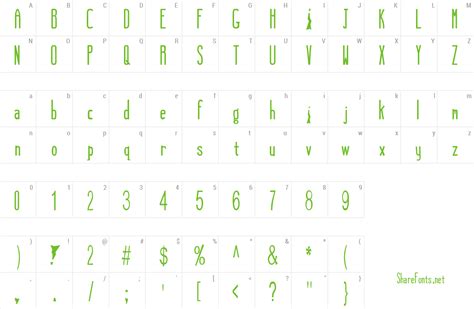
The Hustle Tall Narrow Font: Boost Your Designs
Hey guys! Ever stumbled upon a font that just screams personality and professionalism all at once? That’s exactly what the Hustle tall narrow font does, and trust me, it’s a game-changer for anyone looking to add some serious oomph to their visual projects. We’re talking about a font that’s not just about letters; it’s about making a statement. Whether you’re a graphic designer, a blogger, a marketer, or just someone who loves to make things look awesome, this font is your new best friend. Its unique tall and narrow characteristics give it an undeniable edge, allowing you to fit more text into smaller spaces without sacrificing readability or style. It’s perfect for grabbing attention, whether it’s on a banner, a social media graphic, a website header, or even a business card. The Hustle font is designed to be bold and impactful, ensuring your message cuts through the noise and sticks with your audience. Think about those moments when you need to convey urgency, excitement, or a sense of premium quality – this font nails it every single time. It’s versatile enough to be used in a variety of contexts, from edgy streetwear branding to sophisticated corporate presentations. The beauty of this font lies in its ability to be both commanding and elegant, a rare combination that makes it stand out in a crowded digital landscape. So, if you’re ready to elevate your design game and make your content more engaging and memorable, let’s dive deep into what makes the Hustle tall narrow font such a powerful tool in your creative arsenal.
Why the Hustle Tall Narrow Font is Your Go-To Choice
So, why should you, my awesome readers, be paying attention to the Hustle tall narrow font ? It’s simple, really. In today’s fast-paced digital world, grabbing and holding attention is tougher than ever. That’s where a font like Hustle comes in. Its tall and narrow profile isn’t just a design quirk; it’s a strategic advantage. Imagine you’ve got a killer marketing slogan, but you’re limited by a tight space on a flyer or a website banner. A regular font would force you to either make the text tiny and illegible or break it into multiple lines, ruining the flow. But with Hustle? Boom! You can fit that powerful message in, keeping it large, bold, and impossible to ignore. It’s like having a secret weapon for concise and impactful communication. This font is designed to be noticed . The elongated letterforms create a unique visual rhythm that draws the eye, making headlines pop and calls to action impossible to miss. It’s not just about fitting more text; it’s about making that text work harder for you. Think about the impact it can have on your brand identity. A consistent use of a distinctive font like Hustle can make your brand instantly recognizable. It adds a layer of sophistication and modernity that resonates with a contemporary audience. Plus, its versatility is a huge plus. While it excels in bold, attention-grabbing scenarios, it can also be surprisingly elegant when used with thoughtful kerning and spacing. It adapts to your needs, whether you’re going for a loud, energetic vibe or a sleek, refined look. This adaptability means you don’t need a dozen different fonts; Hustle can cover a surprising range of your design requirements, saving you time and streamlining your creative process. It’s a real workhorse, guys, and it’s ready to perform.
Unleashing the Power: Design Applications of Hustle
Alright, let’s get practical, shall we? How can you actually use this amazing Hustle tall narrow font to make your projects shine? The possibilities are seriously endless, but let’s break down some of the most impactful applications. First up, branding and logos . If you’re creating a brand that needs to stand out, especially in a crowded market, Hustle can be your secret ingredient. A tall, narrow logo font can convey a sense of authority, innovation, and forward-thinking. Think about tech startups, fashion labels, or even high-end service providers – this font communicates a modern, sharp image that’s hard to replicate. It’s perfect for that minimalist yet impactful logo design that looks great on everything from business cards to website favicons. Next, marketing and advertising . This is where Hustle truly shines. Need to create eye-catching posters, social media ads, or website banners? Use Hustle for your headlines and key messages. Its condensed nature means you can pack a punch with minimal space, making your ad copy super effective. Imagine a flash sale announcement or a new product launch – the tall, bold lettering of Hustle will instantly grab attention and convey urgency. It’s perfect for short, punchy calls to action that demand immediate response. For website design , think headers, subheadings, and even navigation menus. A tall, narrow font can add a unique typographic personality to your site without overwhelming the user. It can guide the reader’s eye through the content, adding visual hierarchy and making your site feel more structured and professional. It’s especially great for blogs or online magazines where you want to present content in a clean, modern, and engaging way. And don’t forget packaging design . If you’re selling a product, the packaging is often the first point of contact. Using the Hustle font can give your product a premium, distinctive look that stands out on the shelf. It communicates quality and attention to detail, encouraging customers to pick up your product. Even for editorial design , like magazines or book covers, Hustle can be used sparingly for impactful titles or section headings to create visual interest and guide the reader. It’s all about leveraging its unique form to create emphasis and enhance the overall aesthetic. So, start experimenting, guys, and see where this incredible font takes you!
Tips for Mastering the Hustle Tall Narrow Font
Now that you’re hyped about the Hustle tall narrow font , let’s talk about how to use it like a pro. Because, let’s be real, even the most amazing font can fall flat if it’s not used correctly. So, here are some golden nuggets of advice to help you master this tall and narrow gem . First and foremost, consider your context . As we’ve discussed, Hustle is bold and impactful. It’s fantastic for headlines, short bursts of text, or elements where you want to create a strong visual anchor. However, for long paragraphs of body text? Probably not the best choice, guys. Its tall, narrow nature can become strenuous to read over extended periods. Stick to using it where it has the most impact – think titles, subheadings, or short, punchy phrases. Secondly, play with spacing (kerning and leading) . This is crucial for tall, narrow fonts. Kerning – the space between individual letters – needs careful adjustment to ensure the letters don’t feel too cramped or too far apart. You want a smooth, harmonious flow. Leading – the space between lines of text – is equally important. With Hustle’s condensed form, you might need slightly more leading than usual to prevent lines from visually crashing into each other, thus maintaining readability. Experiment! Thirdly, pair it wisely . No font exists in a vacuum. Hustle is a strong character, so it pairs best with simpler, more conventional fonts for body text. Think clean sans-serifs or classic serifs that won’t compete for attention. This contrast will allow Hustle to stand out while ensuring your entire design is balanced and readable. A good pairing creates synergy, not chaos. Fourth, use it intentionally . Don’t just slap Hustle everywhere because it looks cool. Think about the message you want to convey. Does its bold, tall, narrow aesthetic align with your brand or project’s personality? Is it enhancing your message, or is it distracting from it? Use it as a deliberate design element to add personality, create emphasis, or convey a specific mood. Finally, don’t overdo it . Even the best things can be too much. Limit your use of Hustle to key areas where you want maximum impact. Too much of a good thing can lead to visual fatigue and undermine the font’s effectiveness. By following these tips, you’ll unlock the full potential of the Hustle tall narrow font and ensure your designs are not just stylish, but also effective and professional. Happy designing, everyone!
Conclusion: Make Your Mark with Hustle
So there you have it, folks! We’ve journeyed through the unique charm and practical power of the Hustle tall narrow font . It’s clear that this isn’t just another typeface; it’s a strategic design tool that can genuinely elevate your projects. From making your branding unforgettable to ensuring your marketing messages cut through the noise, Hustle offers a distinctive visual signature. Its tall, narrow aesthetic is more than just a style choice – it’s a functional asset that allows for impactful communication even in tight spaces. We’ve seen how it can be a hero in logos, a standout in advertising, a stylish element in web design, and a sophisticated touch on packaging. Remember, the key to unlocking its full potential lies in intentional use and careful pairing . Master the kerning and leading, choose complementary fonts, and always consider the context and message you’re aiming for. When used thoughtfully, the Hustle font adds that certain je ne sais quoi – a blend of modern edge, professional polish, and undeniable impact. So, if you’re looking to make your mark, to ensure your designs are not only seen but remembered , give the Hustle tall narrow font a try. It’s time to inject some serious personality and effectiveness into your creative work. Go ahead, experiment, and let this fantastic font help you tell your story in a way that’s bold, clear, and absolutely unforgettable. You’ve got this!